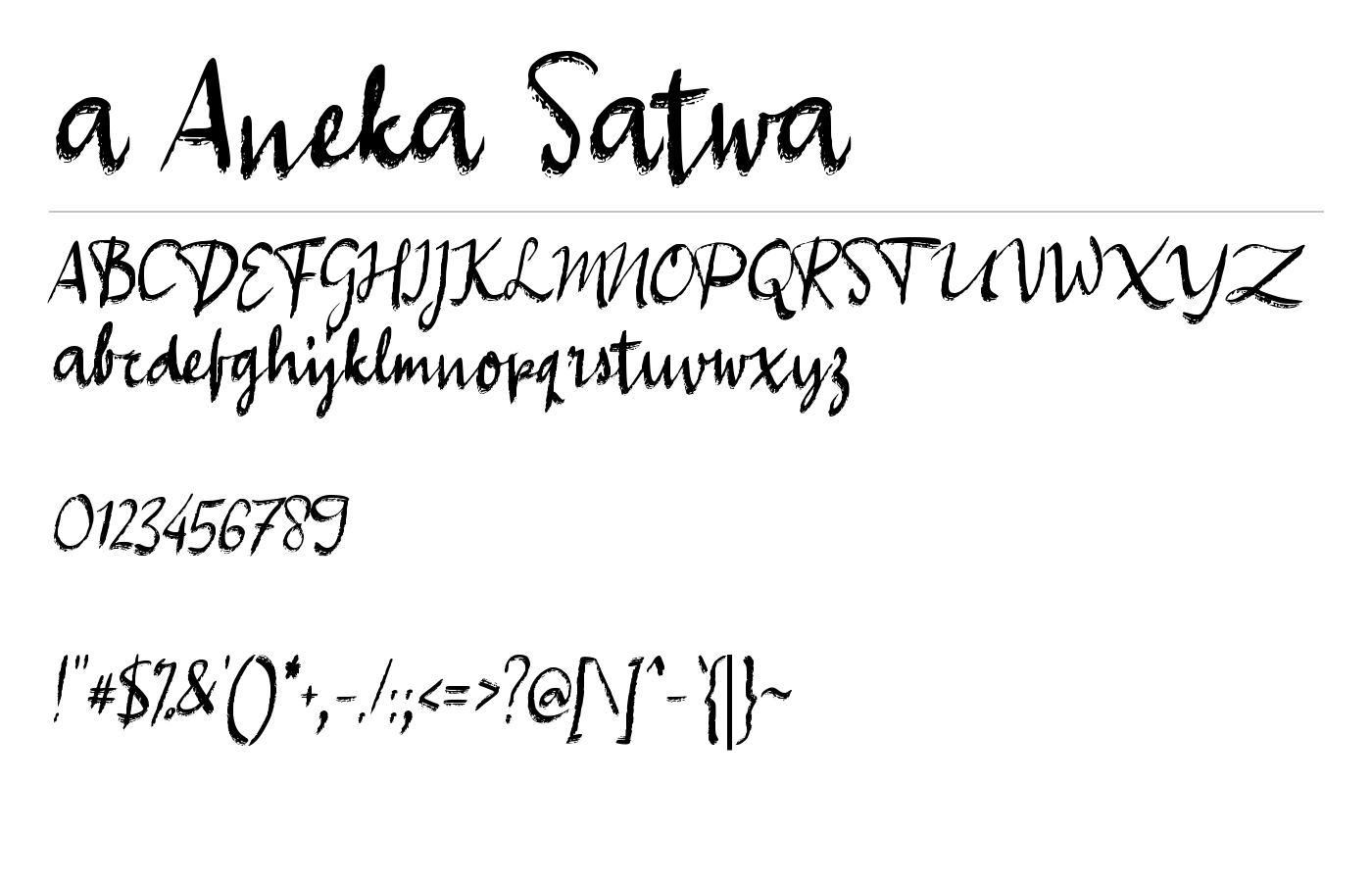
Aneka Satwa is a lively and textured script font that mimics a hand-painted brush style, featuring irregular strokes and a rough, organic feel. Its dynamic, slightly condensed letterforms with high contrast and a mix of flowing and angular shapes impart a playful yet artistic personality, making it perfect for creative designs, casual branding, and eye-catching headlines. This font works well where you want to convey energy, individuality, and a handcrafted touch.
a Aneka Satwa Font
About a Aneka Satwa Font